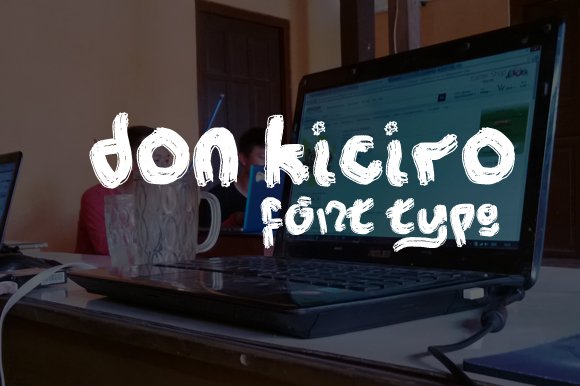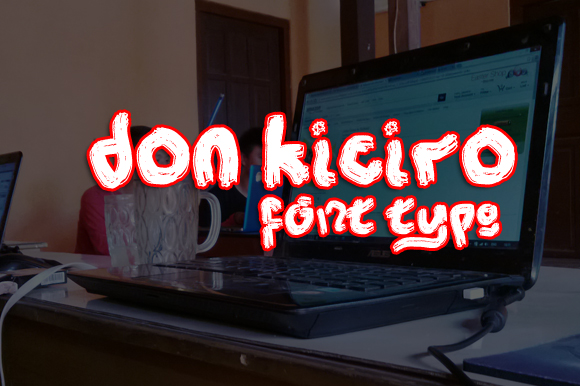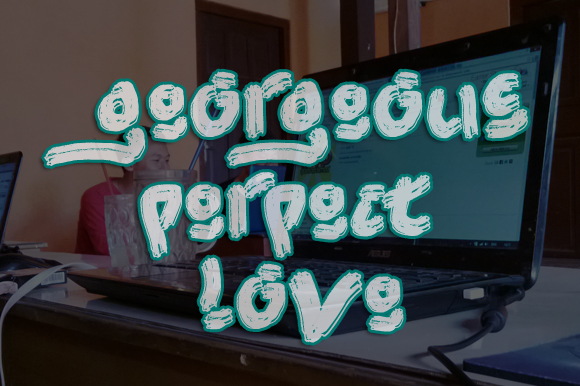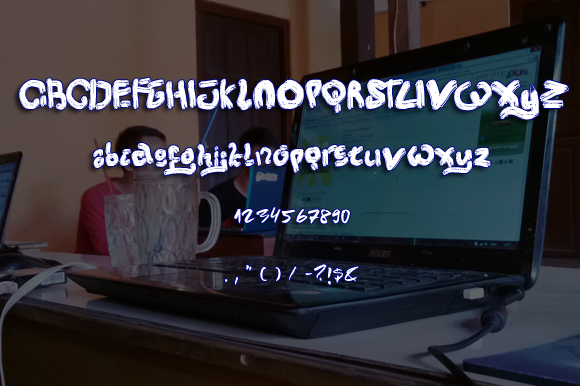
Unleashing Creativity with Donkiciro Font
As a designer, there’s nothing quite like the thrill of finding that perfect font to bring your latest project to life. For me, it was a late-night brainstorming session, surrounded by scraps of paper and half-empty coffee cups, when I stumbled upon Donkiciro Font. This hand-painted brush font was the missing piece I needed to elevate my design from good to great.
Donkiciro Font is a beautiful, hand-crafted typeface that’s perfect for adding a touch of personality to your designs. Whether you’re working on a branding project, a marketing campaign, or even a personal blog, this font is sure to make your work stand out. Its unique, hand-painted feel adds a level of warmth and character that’s hard to find in more traditional fonts.
Doniciero Font Key Features
- Size: The font family includes multiple weights, ranging from Extra Light (100) to Black (900), providing flexibility for various design applications.
- Resolution: Doniciero Font is designed to be scalable, making it suitable for both print and digital applications, including high-resolution displays and large-format printing.
- Unique Characteristics: The font features a unique blend of modern and traditional elements, with a focus on legibility and readability, making it an excellent choice for body text and editorial content.
- Language Support: Doniciero Font includes comprehensive language support, covering Latin, Cyrillic, and Greek scripts, as well as additional characters for accents and diacritics.
- Font Pairing: The font family is designed to be paired with other sans-serif fonts, creating a harmonious and professional look for various design applications.
Designer Review: Donkiciro Font
As a designer, I was excited to try out the Donkiciro font and see how it would perform in various design projects. Overall, I found it to be a decent font, but with some notable limitations.
- ✨ Unique aesthetic: Donkiciro font has a distinct, quirky style that can add visual interest to designs.
- ✨ Good for headings: The font’s bold weight and expressive lines make it suitable for use in headings and titles.
- ⚠️ Limited font sizes: While Donkiciro looks great at larger sizes, it can become distorted and difficult to read at smaller font sizes.
- ⚠️ Not suitable for body text: The font’s irregular shapes and varying line widths make it less readable for extended blocks of text.
- ⚠️ Limited language support: I noticed that the font doesn’t support as many languages as some other fonts, which can be a limitation for global design projects.
Overall, Donkiciro font is a fun and expressive choice for designs that require a bold, eye-catching look. However, it may not be the best choice for projects that require a more traditional or readable font. With some careful planning and selection, Donkiciro can be a great addition to your design toolkit.
Donkiciro Font Practical Application Guide
Tips for Getting the Most Out of the Donkiciro Font
The Donkiciro font is a versatile and stylish font that can be used in a variety of contexts. To get the most out of it, try pairing it with other fonts to create a unique and eye-catching design. You can also experiment with different font sizes and styles to add emphasis and visual interest to your text.
The Donkiciro font is particularly well-suited for use in creative and design-focused projects, such as logos, business cards, and posters. It can also be used in digital projects, such as websites and social media graphics. With its unique and stylish design, the Donkiciro font is sure to make a lasting impression on your audience.